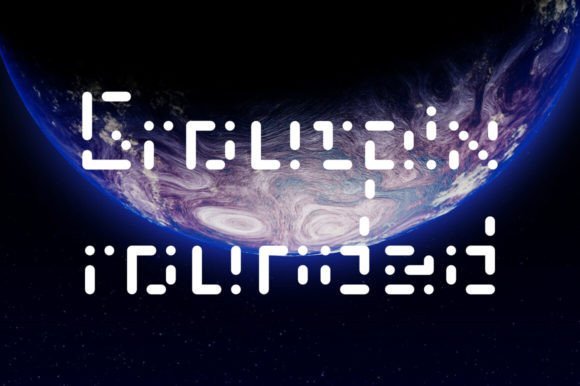
Introduction to Groutpix Rounded Font
Its sleek curves and sharp angles create a harmonious blend of elegance and innovation.
Infuse your designs with a futuristic flair that captivates and engages your audience Embrace the future of typography and elevate your creative projects with bold and dynamic energy.
Key Features of Groutpix Rounded Font
Why Choose Groutpix Rounded Font?
Groutpix Rounded Font offers exceptional quality and versatility, making it a valuable addition to your design toolkit. Whether you’re creating for personal projects or commercial use, Groutpix Rounded Font delivers professional results.